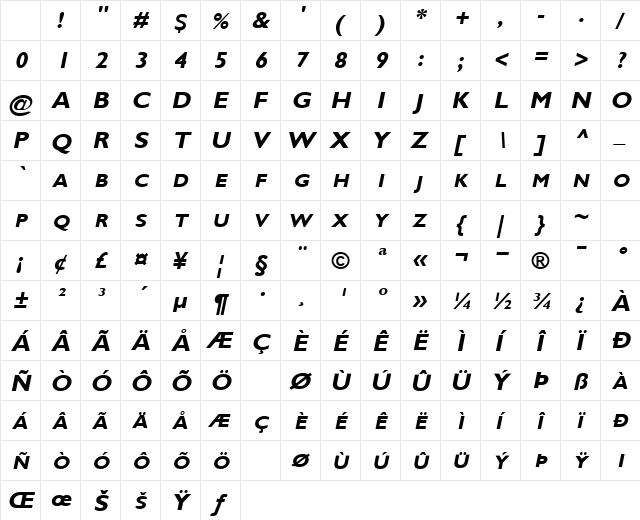
Complete GillsExpert Bold-Oblique glyph index. Displaying only characters natively supported by GillsExpert Bold-Oblique font.
GillsExpert is a composed and adaptable typeface that performs quietly and consistently across a wide range of design contexts. The slanted form adds forward momentum and visual energy. Its bold stroke weight gives it real presence on the page.